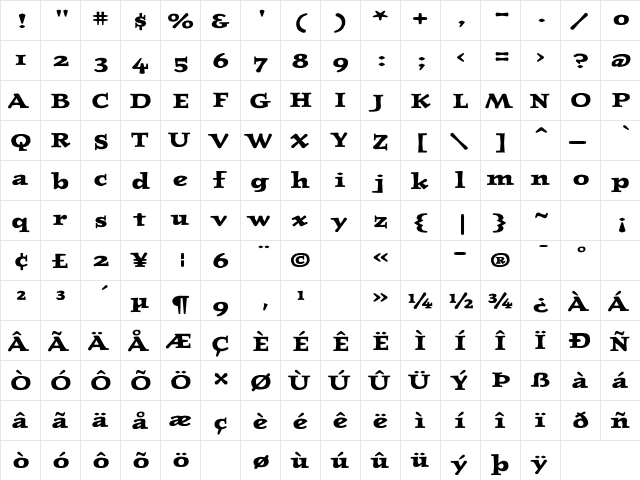
JournalOldstyle-UltraBold Ultra Bold
Design Context for JournalOldstyle-UltraBold Typeface
JournalOldstyle-UltraBold brings classic typographic sensibility to the table — its serifs and measured letterforms reflect centuries of print heritage. Its bold stroke weight gives it real presence on the page.
Pro Tip: Set JournalOldstyle-UltraBold with slightly loose tracking in headlines to let each letterform's detail read clearly at display sizes.